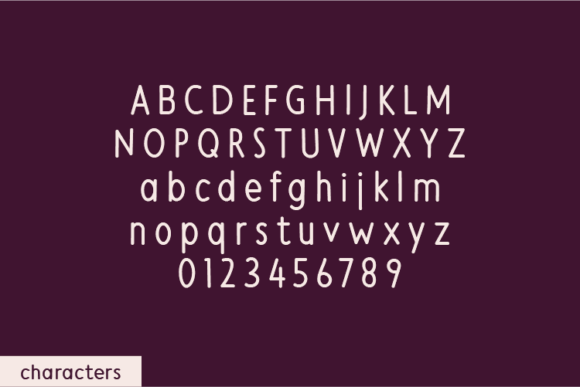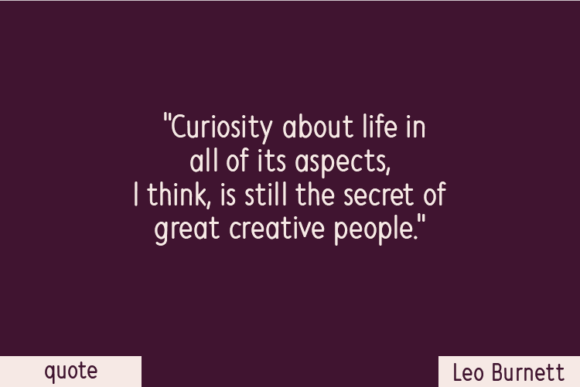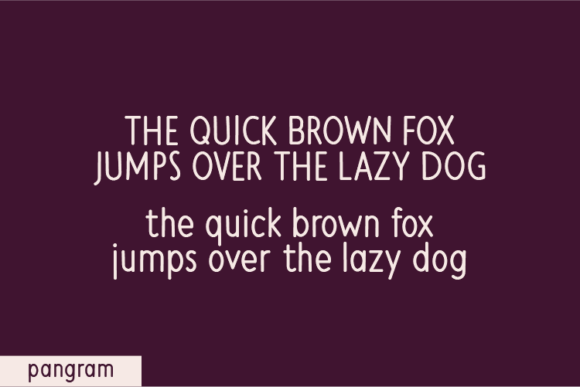
Introduction to Instinctual Font
As a designer, there’s nothing quite like the rush of creativity that comes from finding the perfect font to bring your project to life. I still remember the moment I stumbled upon the Instinctual Font, and how it instantly sparked a flood of ideas for my next design project. The unique, handwritten style of this font is not only visually stunning, but also remarkably versatile – making it the perfect addition to any creative endeavor.
With its high-quality design and transparent background, the Instinctual Font is an invaluable resource for designers looking to add a touch of personality to their work. Whether you’re working on a new product design, a tee for a music festival, or simply need a font for a quote or note, the Instinctual Font is sure to deliver.
Key Features of Instinctual Font
- High-quality design resource with a unique, modern aesthetic, perfect for creative projects.
- Features a clean, minimalist design, making it ideal for use in logos, branding, and other visual identity projects.
Honest Review: Instinctual Font
I recently had the chance to work with the Instinctual Font and I must say, it’s been a game-changer for my creative projects. As a designer, I’m always on the lookout for high quality design resources that can elevate my work and help me stand out from the crowd.
The Instinctual Font is a stunning addition to any design project. It features a unique, hand-drawn style that adds a touch of personality to any text. I particularly love the transparent background option, which allows me to layer my typography with ease.
- ✨ Unique and stylish design
- ✨ High quality rendering
- ✨ Transparent background option
However, I do have a few criticisms:
- ⚠️ Limited font sizes available
- ⚠️ Not ideal for large blocks of text
Overall, I’m thoroughly impressed with the Instinctual Font. While it may have a few limitations, its unique design and high quality rendering make it a valuable addition to any design project. I’d highly recommend it to anyone looking to add a touch of personality to their work.
The Instinctual Font is a high-quality design resource ideal for creative projects. Its unique style and versatility make it perfect for various applications.
The Instinctual Font is ideal for various creative projects, including:
- Print materials
- Digital graphics
For the best results, use the Instinctual Font with a transparent background to achieve a clean and modern look. Experiment with different font sizes and combinations to find the perfect balance for your design.
Yes, the Instinctual Font features a transparent background, making it an ideal design resource for creating high-quality designs with a clear and clean look. This allows you to easily integrate the font with other design elements and backgrounds.